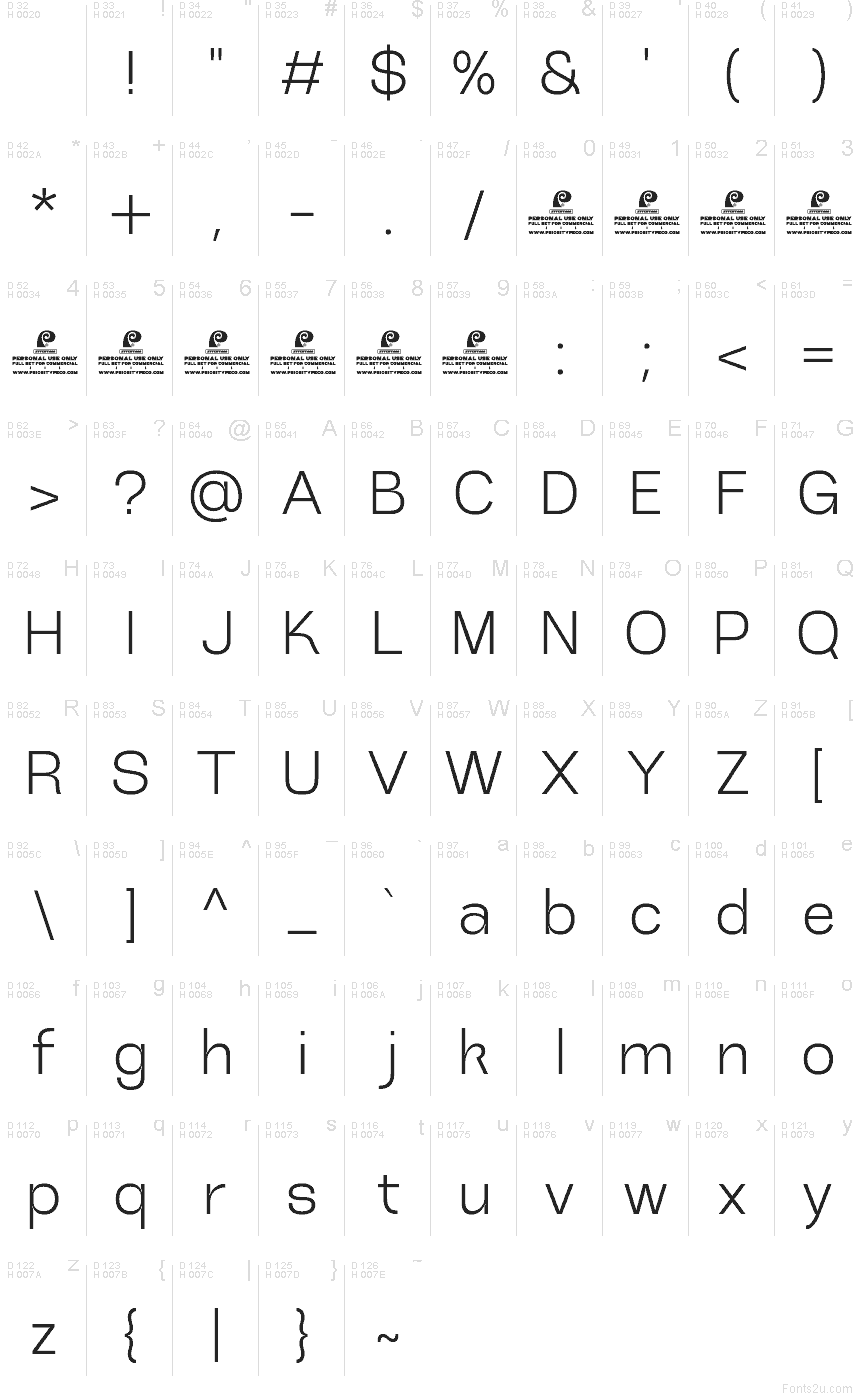
Heuvel Grotesk DEMO Light
Heuvel Grotesk Light font by Prioritype Co is a free sans serif typeface that finally gives minimal layouts some personality. Its strokes are hairline-thin yet steady, with straight, tidy forms softened by gentle curves, so it feels more like drawn ink than cold geometry. The spacing is airy without drifting apart, which keeps headlines crisp and longer text surprisingly readable at smaller sizes.
Using Heuvel Grotesk Light, clean interfaces, editorial spreads, lookbooks, pitch decks, and portfolio websites gain a calm, confident voice instead of shouting for attention. This free font shines on sleek branding, tech products, and contemporary posters where you want refinement over bulk. Try pairing Heuvel Grotesk Light with a sturdy grotesque or geometric weight from the Heuvel Grotesk family for subheads, keeping this light cut for titles, UI labels, and quiet, elegant body copy.